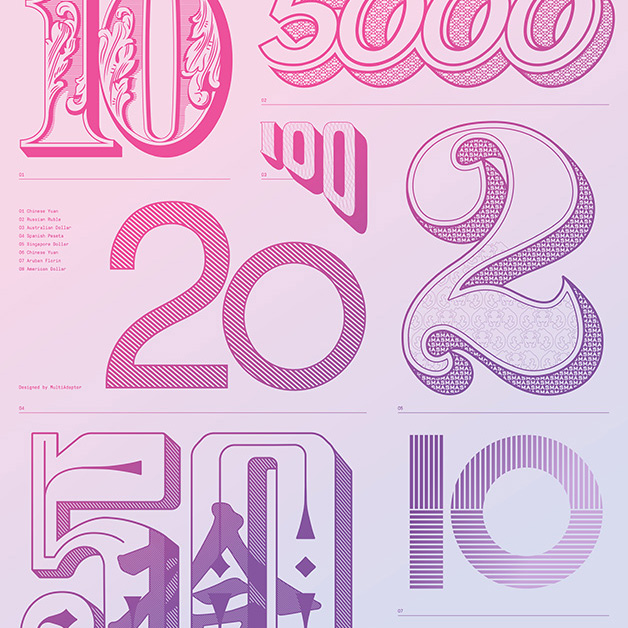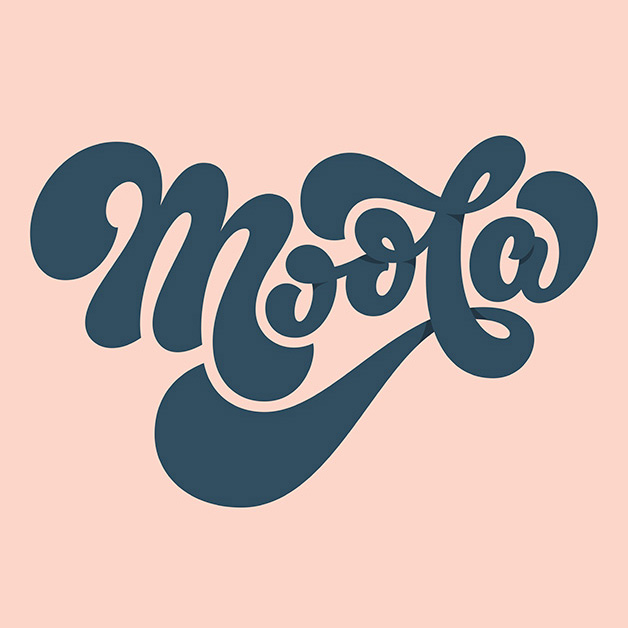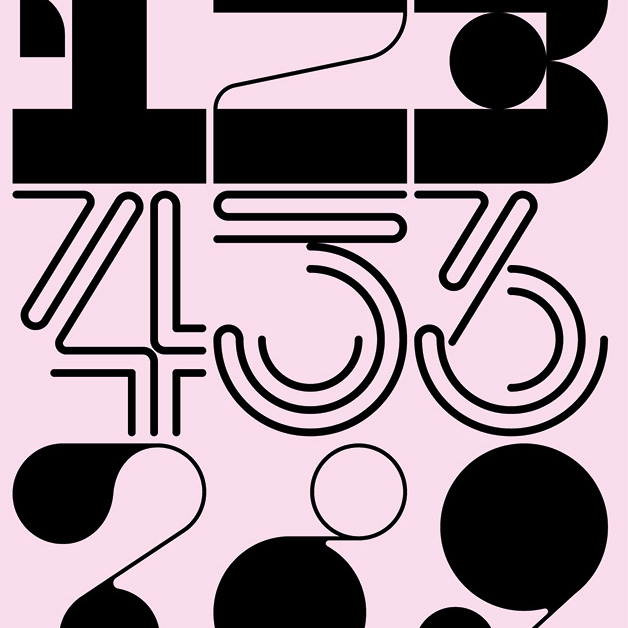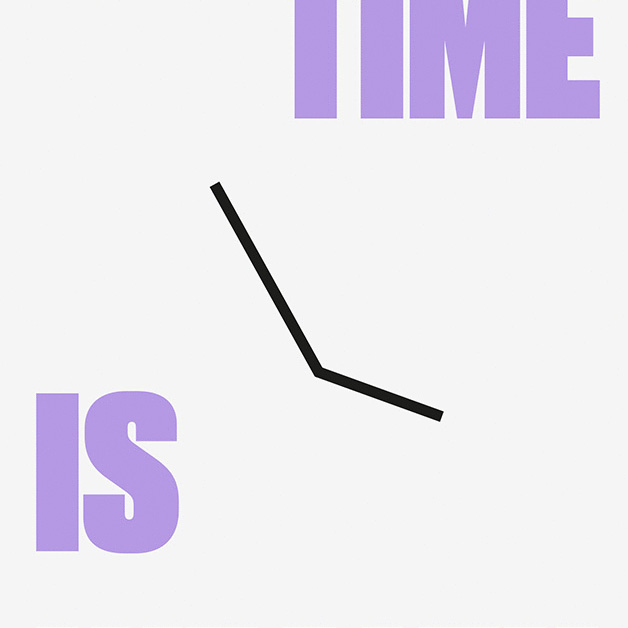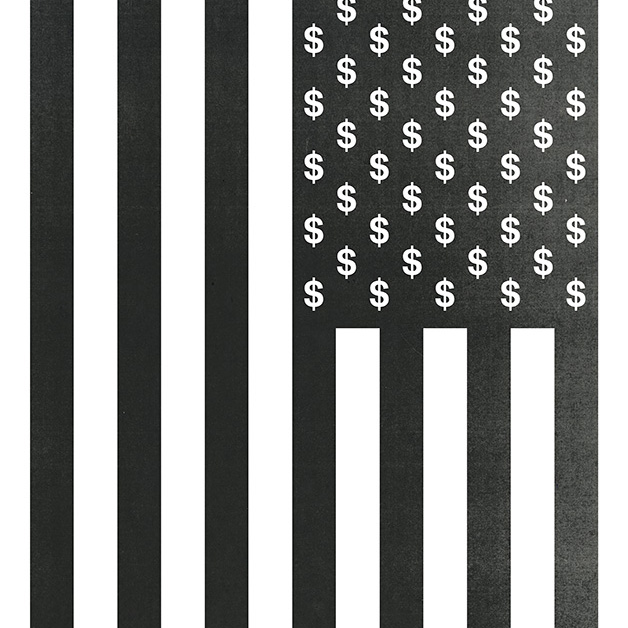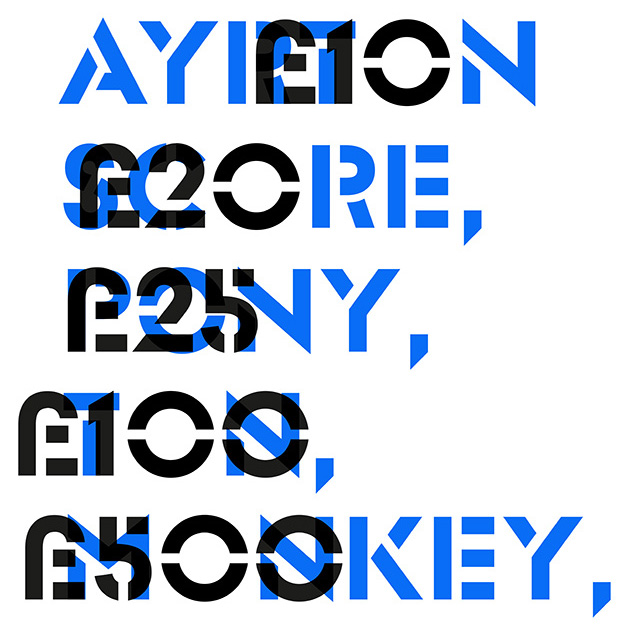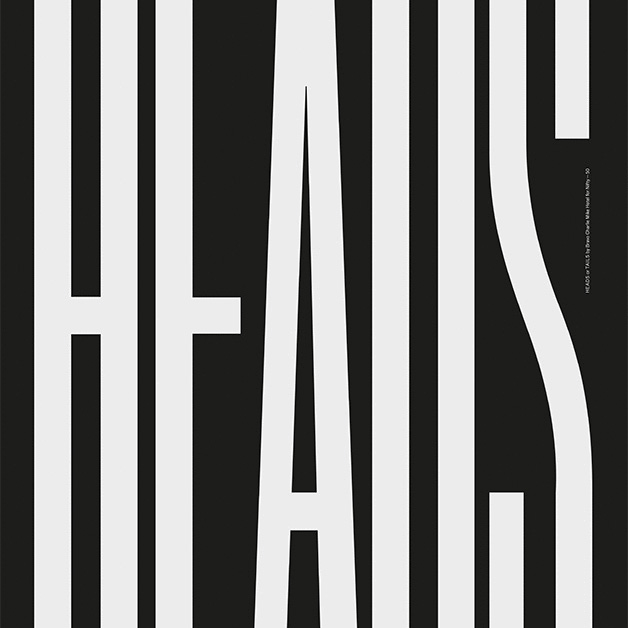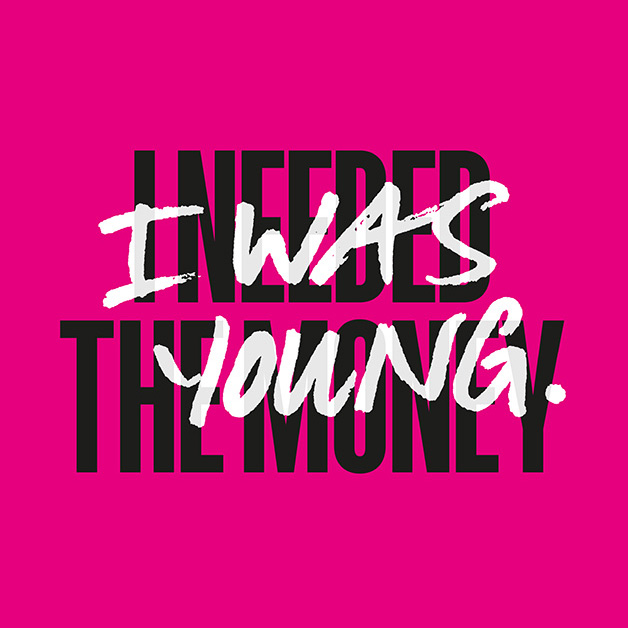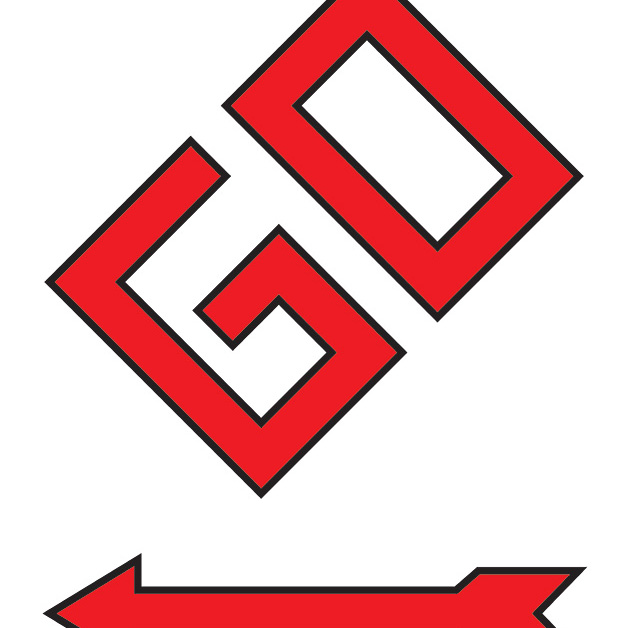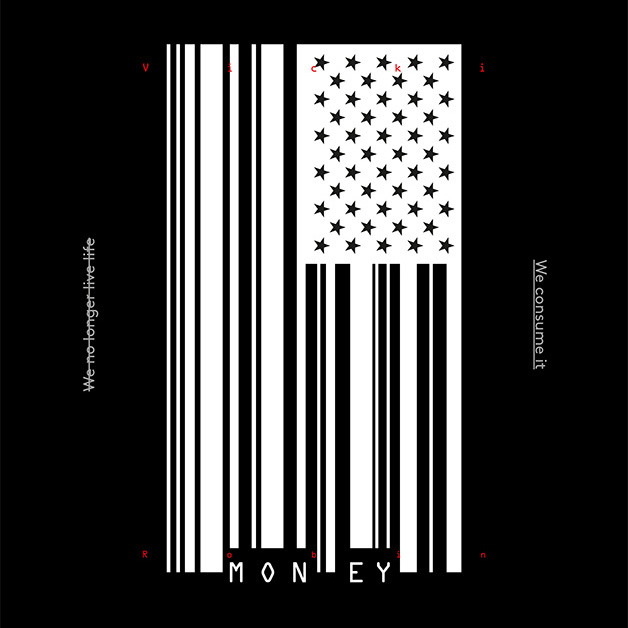
Nifty-50 or 50 ways to design a poster worth its money
What is Nifty Fifty one will wonder before learning the following: nifty-50 refers to the 50 popular large-cap stocks on the New York Stock Exchange in the 1960s and 1970s. This group of large-cap stocks (with large-cap’ referring to the high market value of shares outstanding of a publicly traded company, equal to the share price times the number of shares outstanding with said company) were highly favored by institutional investors for good reason. General Electric, IBM and American Express were some of the most precious stocks to hold and dear. In our case, Nifty-50 is indeed about the value of money for a good cause.
Just like the ‘Fifty’ is credited with propelling the bull market of the early 1970s, Nifty-50 helped raise a serious amount of money because SocioDesign had a brilliant idea. The London based design, strategy, and branding firm asked an international group of creatives to interpret the word “money” in a poster that will be produced in an edition of one and auctioned off with sealed bids. Let’s repeat. 50 designers, 50 posters, one word, that’s what we call a typographic challenge of value literally.
The diversity of the project is refreshing, varying with reason from the strictly typographic through the vibrant illustrative ones to the combination of both. Some entries reference the Monopoly board game, others shout in bold letters “Money Rules the World, sadly this is…shit” whilst Rob Clarke rendered “Moola” in a voluptuous script apt for a word that evokes large amounts. “I decided to be generous when drawing its curves” he explained. Swedish creative agency BVD placed the headline “Yes, of course it hurts” around a heavy poem by Karin Boye about fear, loss, and the ominous side of money and every single individual or team did their best to make a collectable poster worth it’s money and it’s respective weight in 305gsm gold-fleck paper.
Build, Duane Dalton, Graphic Thought Facility, HypeTypeStudio, Spin, Toko and 64 others visionaries of poster design got nifty for Countess Mountbatten Hospice Charity, named after the 2nd Countess Mountbatten of Burma, Patricia Edwina Victoria Knatchbull, a British peer, third cousin of Queen Elizabeth II and first cousin to Prince Philip, Duke of Edinburgh.
Atlas, Give
Bielke&Yang, Time Is Wealth | Bravo Charlie Mike Hotel, Heads or Tails
Build, Bangers and Mash
D8., Devoid
Design Project, EURion Constellation
Kurppa Hosk, Money
dn&co., GO
Duane Dalton, A Penny for Your Thoughts
Face., Face the Future
SB-Studio, The Colour Of Money
POST—, Cash Rules Everything Around Me
Village Green, Village Green vs Free Market Economics [working title]
MultiAdaptor, Numbers of Note
Homework, Make Sense
Lundgren + Lindqvist, Donation Receipt
Rob Clarke, Moola | HypeTypeStudio, I Was Young. I Needed The Money
Studio Output, Lingo Bingo
Sawdust, Time is Money / Money is Time